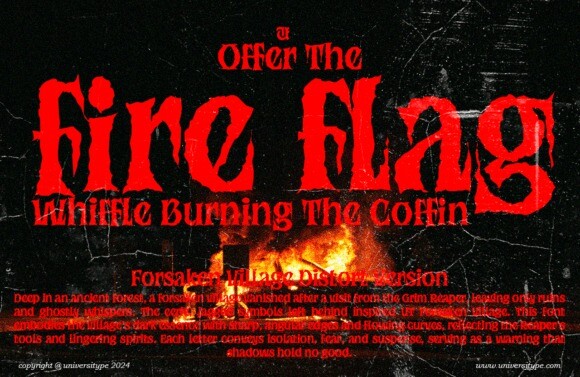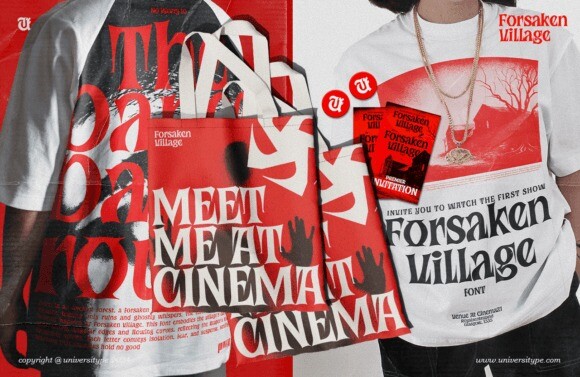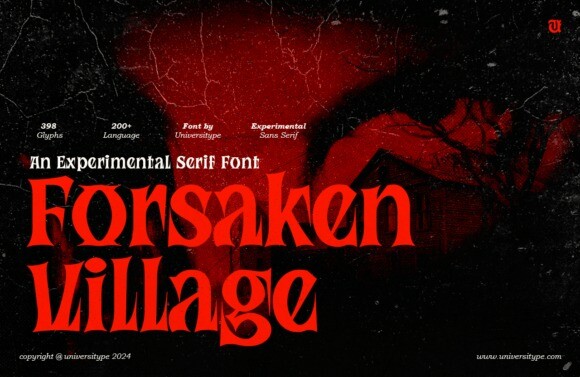
Ut Forsaken Font
UT Forsaken Font, drawn from the shadowy corners of horror and mystique, paying tribute to the grim specter of the Grim Reaper himself. Every detail of this font emanates a tingling sense of dread, poised to infuse your projects with an aura of suspense and curiosity. Creating an eerie ambiance with its distorted strokes, sharp angles, and ghostly silhouettes, UT Forsaken Village is more than just a font; it’s an expedition into the darkness of an abandoned village where whispers sift through shadows and darkness is the sole resident.
This creepy typeface captures the raw essence of horror and gothic aesthetics, making a bold statement for brave hearts willing to traverse the supernatural. The robust strokes send shivers down the spine, while the intricate details exude a ghostly grace. Whether you’re designing a horror poster, a ghost-town invitation, or an ominous book cover, UT Forsaken Village will lend a chilling aura to your creations.
Although the foreboding facade of UT Forsaken Village can induce chills, it also offers a versatile functionality that makes it perfect for horror-themed branding. It harmonizes old-world gothic influences with contemporary elements, creating a font that maintains its enduring, unsettling appeal. This eerie font is inherently adaptable, fitting into various digital and print contexts, all the while brimming with spectral charm.
UT Forsaken Village is a perfect fit for creatives thriving in the dark and mysterious terrains of horror-inspired aesthetics. Whether you’re a graphic designer, a brand specialist, a content creator reveling in terror, a publisher or author dabbling in horror fiction, an event planner gearing up for a haunted Halloween, a gothic fashion brand, or a tattoo parlor steeped in horror art, this font can offer the perfect spooky typography to match your artistic vision.
UT Forsaken Village ignites an atmosphere of dread with its dark and ominous aesthetic. Each character is meticulously crafted with jagged edges and undercurrents of unease. Despite its disturbing style, this font remains versatile for horror-themed initiatives, be it digital media, branding, or physical designs. Despite the eerie environment it creates, legibility is a signature feature. No matter how intense the task, maintaining clarity while staying thrillingly bewitching is a given. The typeface tells a tale of bygone gothic elegance juxtaposed with a modern twist, achieving a balance to meet present-day project requirements.
Drawing inspiration from the Grim Reaper, a figure surrounded by death and darkness in folklore, UT Forsaken Village embodies both dread and fascination. The twisted curves and jagged strokes mimic a winding journey through an ancient, haunted village where every corner has the potential for an uncanny experience. The design reflects the paradoxical fear of death and allure of the obscure, offering an underlying theme of decay, abandonment, and elusive spirits, making UT Forsaken Village a font that straddles the thin line between life and death.